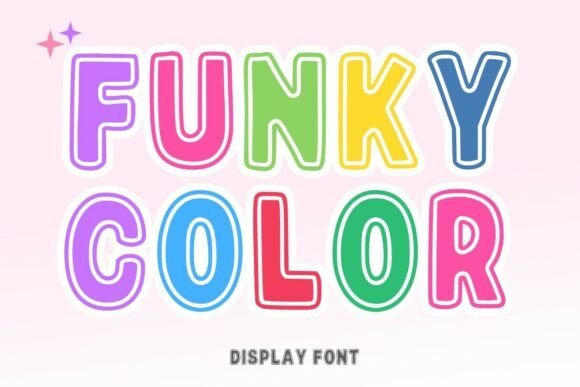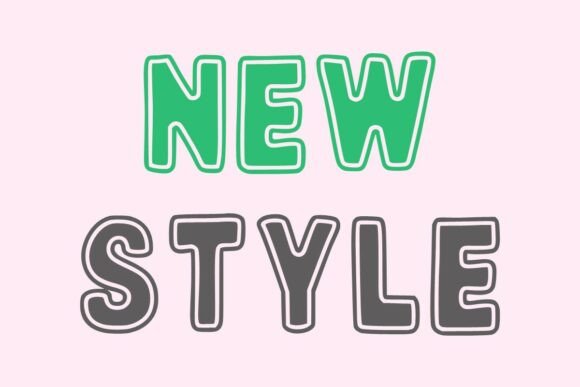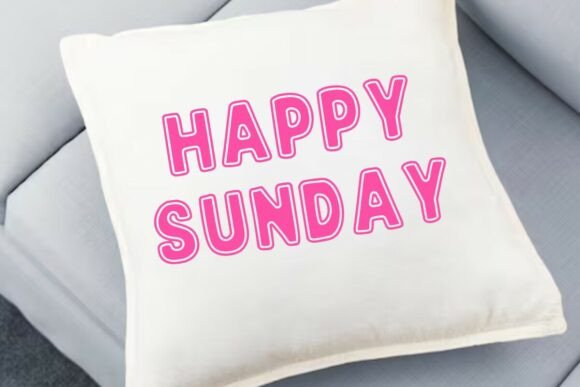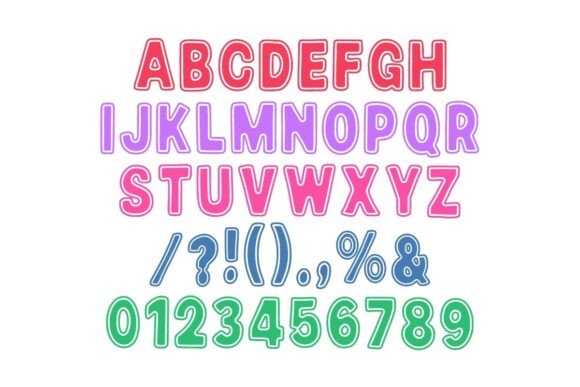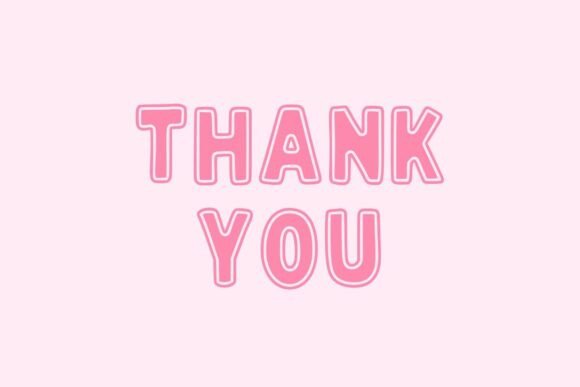
Get Ready to Unleash Your Inner Child with the Funky Color Font
Have you ever stared at a blank canvas, pencil in hand, and let your imagination run wild? For designers, this moment of creative freedom is a thrill that never gets old. It’s the spark that ignites a new project, and the Funky Color Font is the perfect catalyst to set it ablaze. This vibrant, cartoon-style typeface is a masterclass in whimsy, carefully crafted to inject a dash of fun into your designs.
As a designer, you’ll find that the Funky Color Font is an invaluable tool in your toolkit. Its playful, hand-rendered letters are guaranteed to bring a smile to the faces of your young audience, making it the go-to choice for children-oriented designs and endearing brand identities. With this font, you’ll be able to capture the essence of joy and playfulness with ease, making it a valuable addition to your design arsenal.
- Font Family: Funky Color Font is a custom-designed font family with a unique, playful aesthetic.
- Unique Characteristics: Funky Color Font features a vibrant color palette, with each character having a distinct, hand-painted appearance.
Funky Color Font Review
Overall, I’m quite impressed with the Funky Color Font, but it’s not without its quirks. ✨ One thing that really stands out is its versatility – this font is perfect for creating eye-catching headlines and titles that grab attention. The bold, playful style is ideal for modern websites, social media, and even advertising materials.
- ✨ Customizable colors: the ability to change the font color to match your brand or design is a huge plus.
- ⚠️ Limited font weights: the font only comes in a few weights, which can make it difficult to achieve a consistent look and feel across different design elements.
- ⚠️ Not suitable for body text: while the font is great for headlines and titles, it’s not ideal for large blocks of body text.
Overall, I’d give the Funky Color Font 4 out of 5 stars. While it has some limitations, its versatility and customizability make it a great choice for designers looking to add a pop of color to their designs.
Funky Color Font is ideal for creating eye-catching headlines, titles, and emphasis text. Use it to add a pop of color and personality to your designs.
Compared to Funky Color Font, Great Vibes Font is more refined and polished, making it suitable for a wider range of applications. While Funky Color Font is more playful and attention-grabbing, Great Vibes Font is more versatile and easy to read.